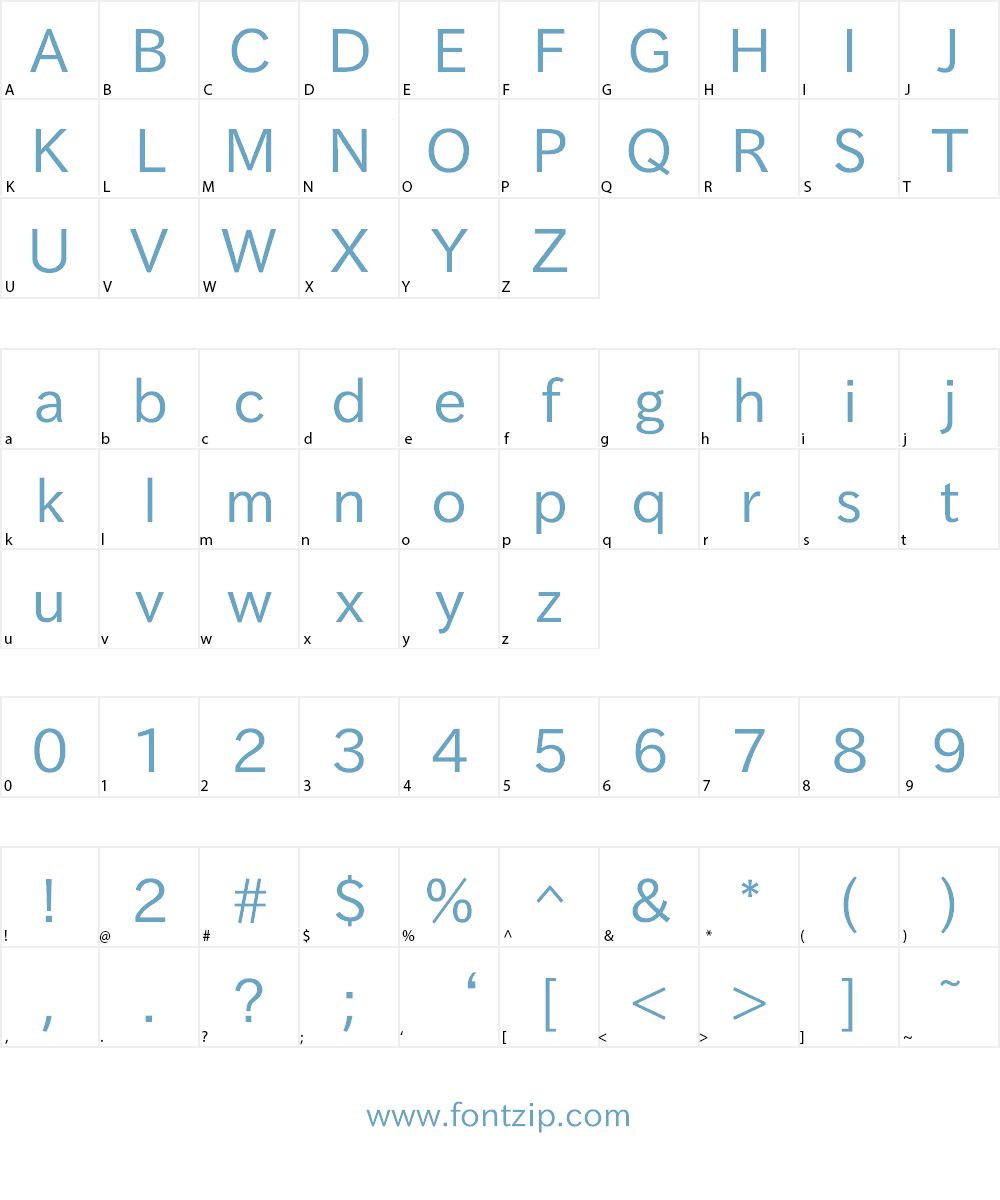
Lorelei (pronounced loh-REH-ly) is a series of Japanese fonts created by Carl Heavenezer M. Castro, and is named after the Touhou Project character Mystia Lorelei, who is also the main member of Team 9. This is the Gothic font, which serenades the inspiration of the Japanese silly handwritten lettering.